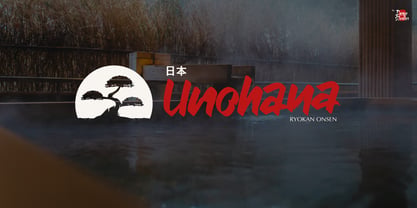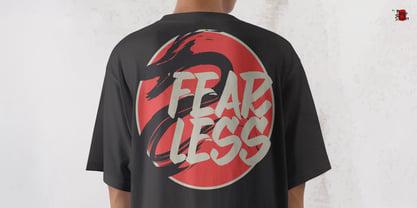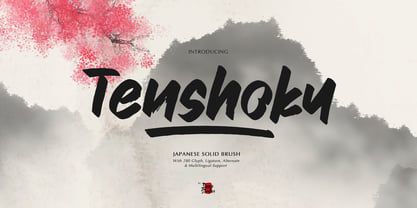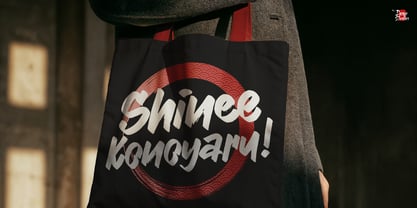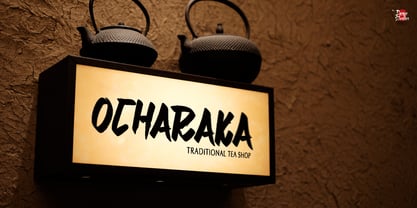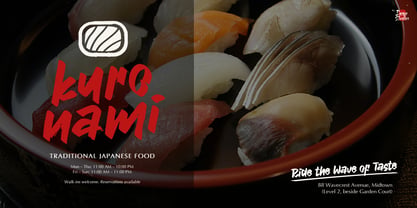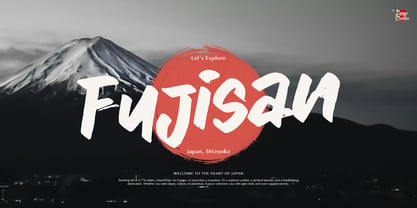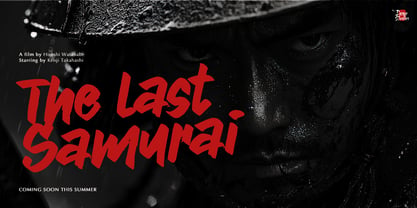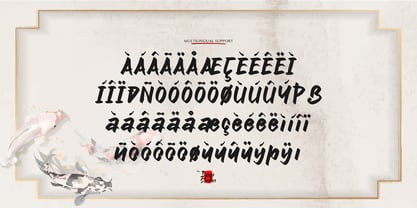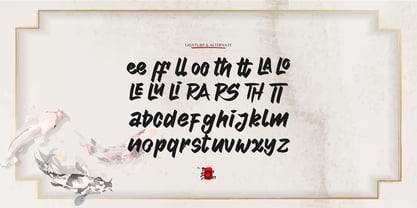
Tenshoku
Tenshoku | Japanese Solid Brush, from Denustudios, suitable for any projects such as: logos, branding projects, homeware designs, product packaging, mugs, quotes, posters, shopping bags, t-shirts, book covers, name card, invitation cards, greeting cards, label, photography, watermark, special events, and all your other lovely projects that need Japanese Solid Brush a taste.
• Regular and Italic
• Alternate and Ligature
• Fonts include multilingual support